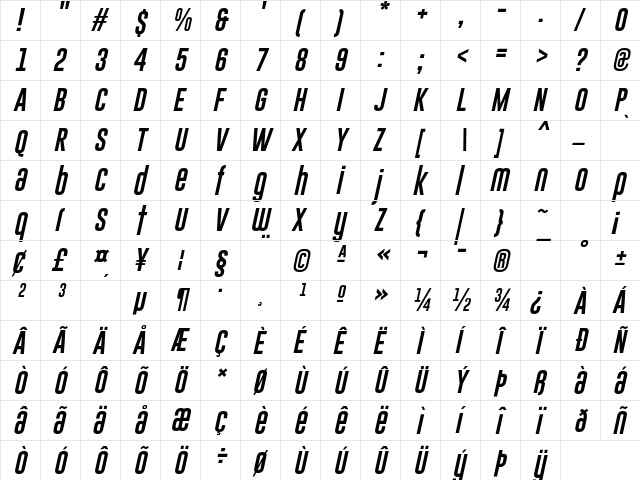
Gobold Uplow Italic
Design Context for Gobold Uplow Typeface
Gobold Uplow offers clean, dependable letterforms without strong stylistic allegiance, making it a practical choice for designers who need flexibility. The slanted form adds forward momentum and visual energy. Its bold stroke weight gives it real presence on the page.
Pro Tip: Try Gobold Uplow for annotation and caption copy alongside an upright companion — the contrast in angle creates a dynamic but ordered typographic system.